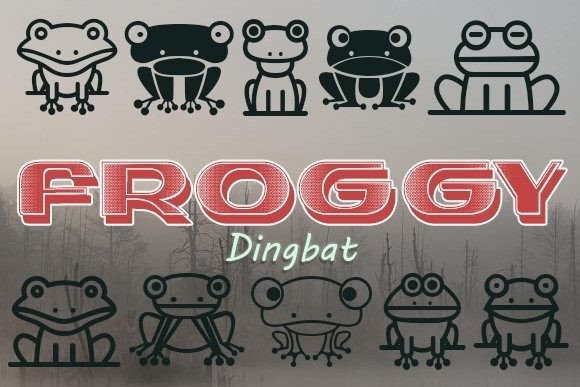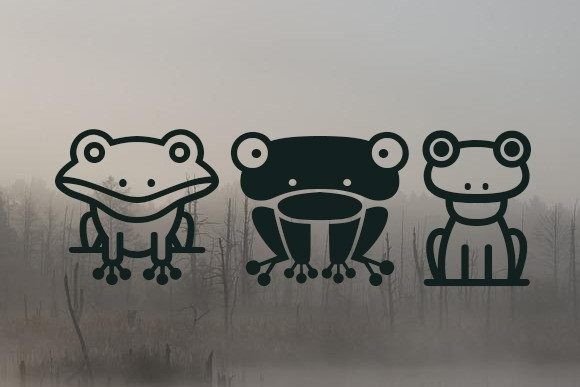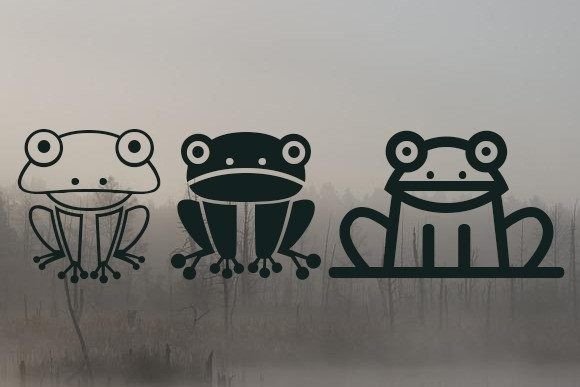
“Froggy” is an exceptional dingbat font that brings a playful and charming element to your designs. With its collection of adorable frog illustrations, this font is sure to make a delightful impact on any project.
When you use “Froggy” in your works, you infuse them with a sense of fun, whimsy, and lightheartedness. The cute and expressive frog illustrations add a touch of personality and charm to your designs, instantly capturing the attention and hearts of viewers. Whether you’re creating headlines, banners, or any other type of design, “Froggy” will bring a smile to people’s faces.
The versatility of “Froggy” allows you to explore various creative possibilities. You can use the frog illustrations as decorative elements, create captivating patterns, or even combine them to form custom compositions. The range of poses and expressions offers you flexibility in expressing your ideas and creating visually engaging designs.
In addition to its visual appeal, “Froggy” can also be used to convey specific messages or themes. It is particularly well-suited for designs related to nature, wildlife, children’s projects, or any context that calls for a playful and vibrant touch. The whimsical nature of the frog illustrations adds a sense of joy and innocence to your works.
Whether you’re designing for a children’s event, a nature-themed campaign, or simply want to add a touch of whimsy to your creations, “Froggy” is the perfect choice. The font’s ability to evoke smiles and create a positive and lighthearted atmosphere makes it a valuable asset in your design arsenal.
So, embrace the charm of “Froggy” and let it enhance your works. Incorporate these adorable frog illustrations into your headlines, banners, and other design elements, and watch as they bring a sense of playfulness and enchantment to your projects.